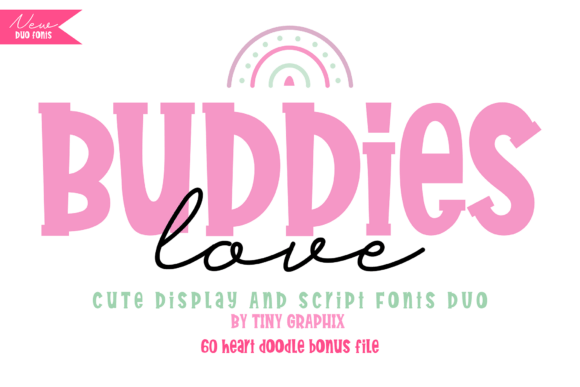
Discover the Charm of Buddies Love Duo Font
As a designer, I’ve had my fair share of projects that required a touch of romance and playfulness. I recall working on a Valentine’s Day card design for a client, struggling to find the perfect font that would capture the essence of love and friendship. That’s when I stumbled upon the Buddies Love Duo Font, and it instantly became my go-to choice. In this article, I’ll share my experience with this delightful font duo and provide a comprehensive guide on how to make the most of its features.
A Personal Review of Buddies Love Duo Font
- 💕 The font duo consists of two distinct styles: a bold, chunky display font perfect for headlines, and a graceful, flowing script for a hand-written feel.
- 🎉 It’s inspired by friendship and love, making it ideal for Valentine’s Day cards, wedding invitations, and “furry buddy” themed designs.
While the Buddies Love Duo Font is an excellent choice for various design projects, there are a few minor limitations to consider:
- 🤔 The font duo may not be suitable for formal or professional designs, as it’s primarily intended for creative and playful projects.
- ⚠️ Some users may find the bold display font a bit too chunky for certain design applications.
The Buddies Love Duo Font supports OpenType features, including glyphs and stylistic alternates. To access these features:
The Story Behind Buddies Love Duo Font
The Buddies Love Duo Font was designed with love and friendship in mind. The designer aimed to create a font duo that would capture the essence of romance and playfulness, making it perfect for Valentine’s Day cards, wedding invitations, and other love-themed designs. The font’s inspiration comes from the joy of friendship and the beauty of love, making it an excellent choice for designers and crafters looking to add a touch of whimsy to their projects.